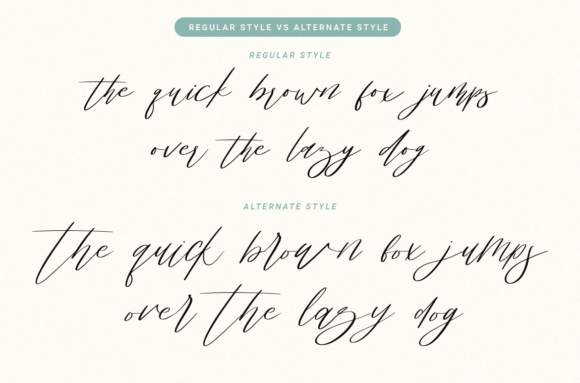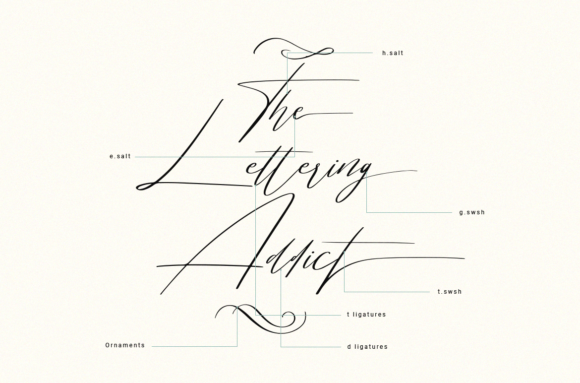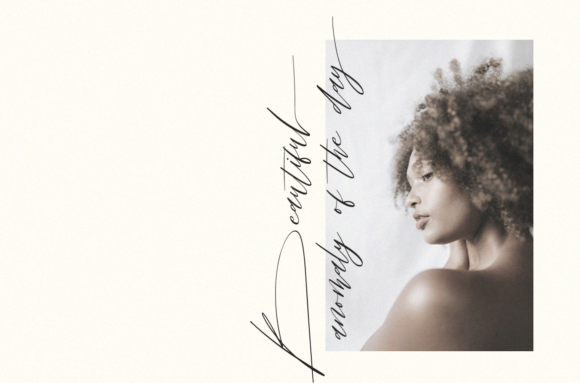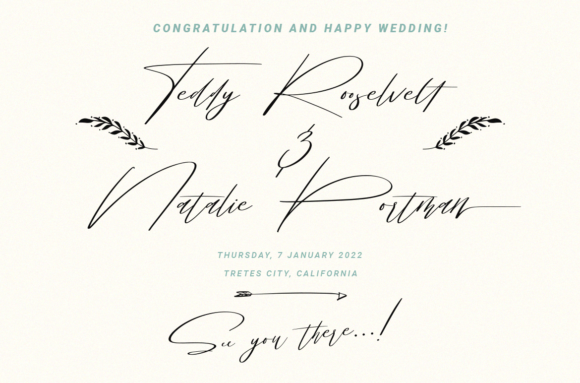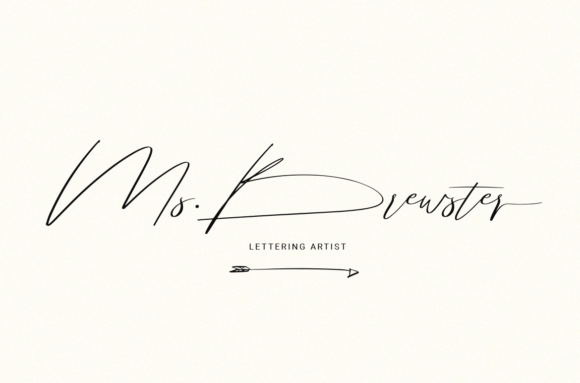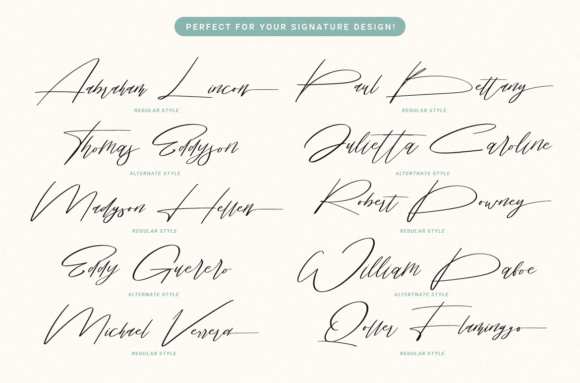
Bisqootte Font: The Ultimate Choice for Romantic and Delicate Designs
Are you a designer or crafter looking for a font that exudes romance and elegance? Look no further than the Bisqootte font. This thin lettered and delicate script font is perfect for adding a touch of sophistication to your love letters, wedding invitations, and design projects. In this article, we’ll explore the features and benefits of Bisqootte, and why it’s a must-have for anyone looking to create beautiful and memorable designs.
What is Bisqootte Font?
Bisqootte is a stunning script font that features thin, delicate letters and a romantic flair. Its elegant and refined design makes it perfect for a variety of applications, from wedding invitations and love letters to branding and packaging. With Bisqootte, you can add a touch of sophistication and whimsy to your designs, making them truly unforgettable.
Key Features of Bisqootte Font
- Thin Lettered and Delicate: Bisqootte features thin, delicate letters that are perfect for creating elegant and refined designs.
- Romantic and Lovely: This font exudes romance and whimsy, making it perfect for love letters, wedding invitations, and other special occasions.
- PUA Encoded: Bisqootte is PUA encoded, which means you can access all of the glyphs and swashes with ease.
Benefits of Using Bisqootte Font
So why choose Bisqootte font for your design projects? Here are just a few benefits of using this beautiful font:
- Adds a Touch of Elegance: Bisqootte adds a touch of elegance and sophistication to any design project.
- Perfect for Romantic Occasions: This font is perfect for love letters, wedding invitations, and other romantic occasions.
- Versatile: Bisqootte can be used for a variety of design projects, from branding and packaging to digital graphics and more.
- Easy to Read: Despite its delicate nature, Bisqootte is easy to read, making it perfect for body text and other applications.
Tips and Tricks for Using Bisqootte Font
Here are a few tips and tricks for getting the most out of Bisqootte font:
- Pair with Bold Fonts: Pair Bisqootte with bold fonts for a striking contrast.
- Use for Headings and Titles: Use Bisqootte for headings and titles to add a touch of elegance and sophistication.
- Use for Digital Graphics: Use Bisqootte for digital graphics, such as social media graphics and blog posts, to add a touch of whimsy and romance.
In conclusion, Bisqootte font is a beautiful and elegant script font that’s perfect for designers and crafters looking to add a touch of romance and sophistication to their designs. With its thin lettered and delicate design, PUA encoding, and ease of use, Bisqootte is a must-have for anyone looking to create beautiful and memorable designs. Whether you’re creating love letters, wedding invitations, or digital graphics, Bisqootte is the perfect choice.